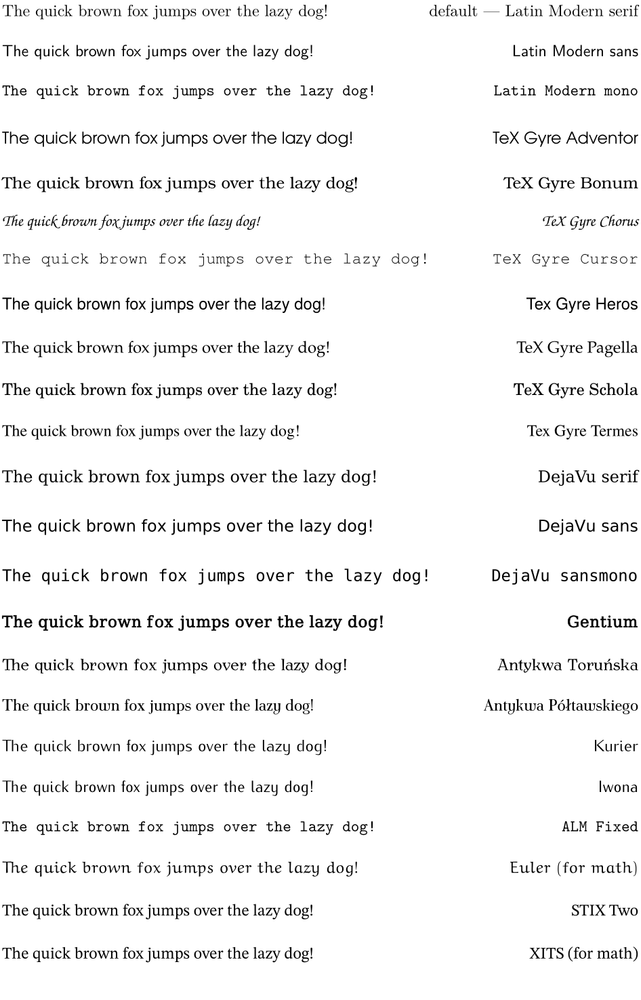
A collection of fonts is called a typescript in ConTeXt. The following typescripts are available for fonts distributed with ConTeXt (the name of the typescript is shown as typescriptname):
The Latin Modern font family, which is a modern version of standard TeX font
Computer Modern
:
modern: synonymmodern-base -
modernvariable: synonymmodern-variable(a variable width typewriter font)
The
TeX Gyre
Collection of Fonts, cross-platform OpenType formats.
pagella: synonympalatino -
termes: synonymtimes -
heros: synonymhelvetica -
bonum: synonymbookman -
schola: synonymschoolbook -
adventor: synonymavantgarde -
cursor: synonymcourier -
chorus: synonymchancery
The DejaVu font family :
dejavuanddejavu-condensed -
6 additionals fonts (covering serif, sans serif, and monospaced)
Gentium :
gentium -
Antykwa Poltawskiego :
antykwapoltawskiego -
Antykwa Toruńska:
antykwa -
Kurier :
kurier,ss -
Iwona:
iwona -
IMB Plex:
plex(serif, sans, mono, condensed, extra-light to semi bold and bold) -
EB Garamond:
ebgaramond -
Libertinus:
libertinus
Gentium :
3 additional math fonts:
Euler:
eulernova -
STIX2:
stixtwo -
XITS:
xits -
Kp:
kp -
XCharter:
charter
Euler:
| Name | Serif | Sans serif | Monospaced | Class | Similar to |
|---|---|---|---|---|---|
| Latin Modern |
modern |
modern,ss |
modern,tt |
Didone, current TeX standard, [1]. | Computer Modern |
| Tex Gyre Adventor | - |
adventor |
- | Geometric sans-serif | ITC Avant Garde Gothic |
| Tex Gyre Bonum |
bonum |
- | - | Old Style, Serif transitional, | ITC Bookman |
| Tex Gyre Chorus |
chorus |
- | - | Script | ITC Zapf Chancery |
| Tex Gyre Cursor | - | - |
cursor |
Monospaced, Slab serif | Courier |
| Tex Gyre Heros | - |
heros |
- | Geometric sans-serif | Helvetica |
| Tex Gyre Pagella |
pagella |
- | - | Old Style, Serif | Palatino |
| Tex Gyre Schola |
schola |
- | - | Serif transitional | Century Schoolbook |
| Tex Gyre Termes |
termes |
- | - | Old Style transitional | Times (new) Roman |
| DejaVu |
dejavu |
dejavu,ss |
dejavu,tt |
Sans-serif, Humanist | Bitstream Prima |
| Gentium |
gentium |
- | - | Old Style | |
| Antykwa Poltawskiego |
antykwapoltawskiego |
- | Antiqua | ||
| Antykwa Toruńska |
antykwa |
- | - | Antiqua | |
| Kurier | - |
kurier,ss |
- | Sans serif | |
| Iwona | - |
iwona |
- | Sans serif, alternative to Kurier | |
| Arabic-Latin Modern Fixed | - | - |
almfixed,tt |
extension of TeX-Gyre LM Mono 10 | |
| Euler |
eulernova |
- | - | An upright cursive typeface, for maths. | |
| STIX2 |
stixtwo |
- | - | Scientific and Technical Information Exchange fonts.For scientific typesetting with proper mathematical support | Times (new) Roman |
| XITS |
xits |
- | - | Clone of STIX font | Times (new) Roman |
This produces: